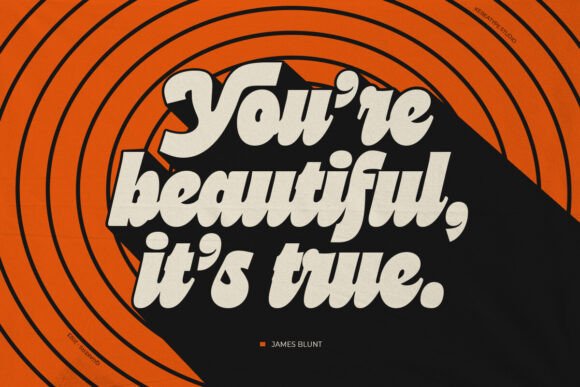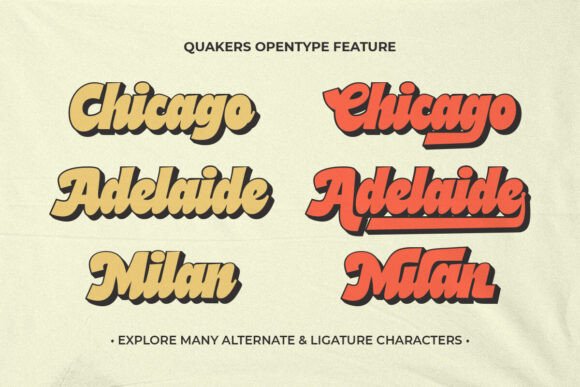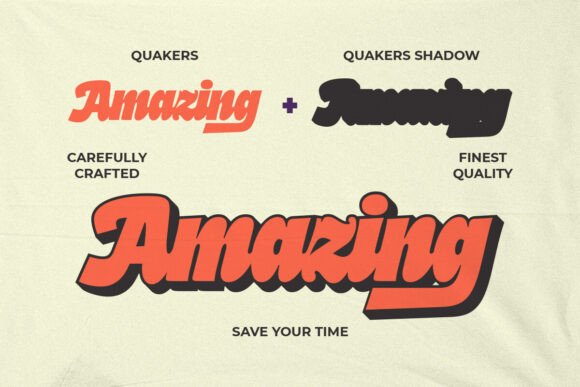
Quakers Font
Quakers is a retro bold script typeface infused with playful curves and dynamic shadow effects, crafted to spark nostalgia and groove. Perfect for vintage logos, music posters, pizza menus, apparel branding, and any project that craves a bold retro vibe.Channeling the upbeat energy of 70s funk, old-school signage, and soda pop graphics, Quakers brings a punchy presence with every glyph. Its thick, slanted letterforms and layered shadow style deliver maximum retro impact, whether in a solo script or stacked with its Shadow version. Alternate ligatures and swashes add an extra flavor of customization.Quakers is a go-to font for projects needing personality, funk, and flair. Ideal for retro food packaging, event flyers, YouTube thumbnails, typographic quotes, and nostalgic brand identities. Add colors, curves, and bounce to your message with this throwback beauty.Take your designs back in time! grab Quakers now and let the groove roll.